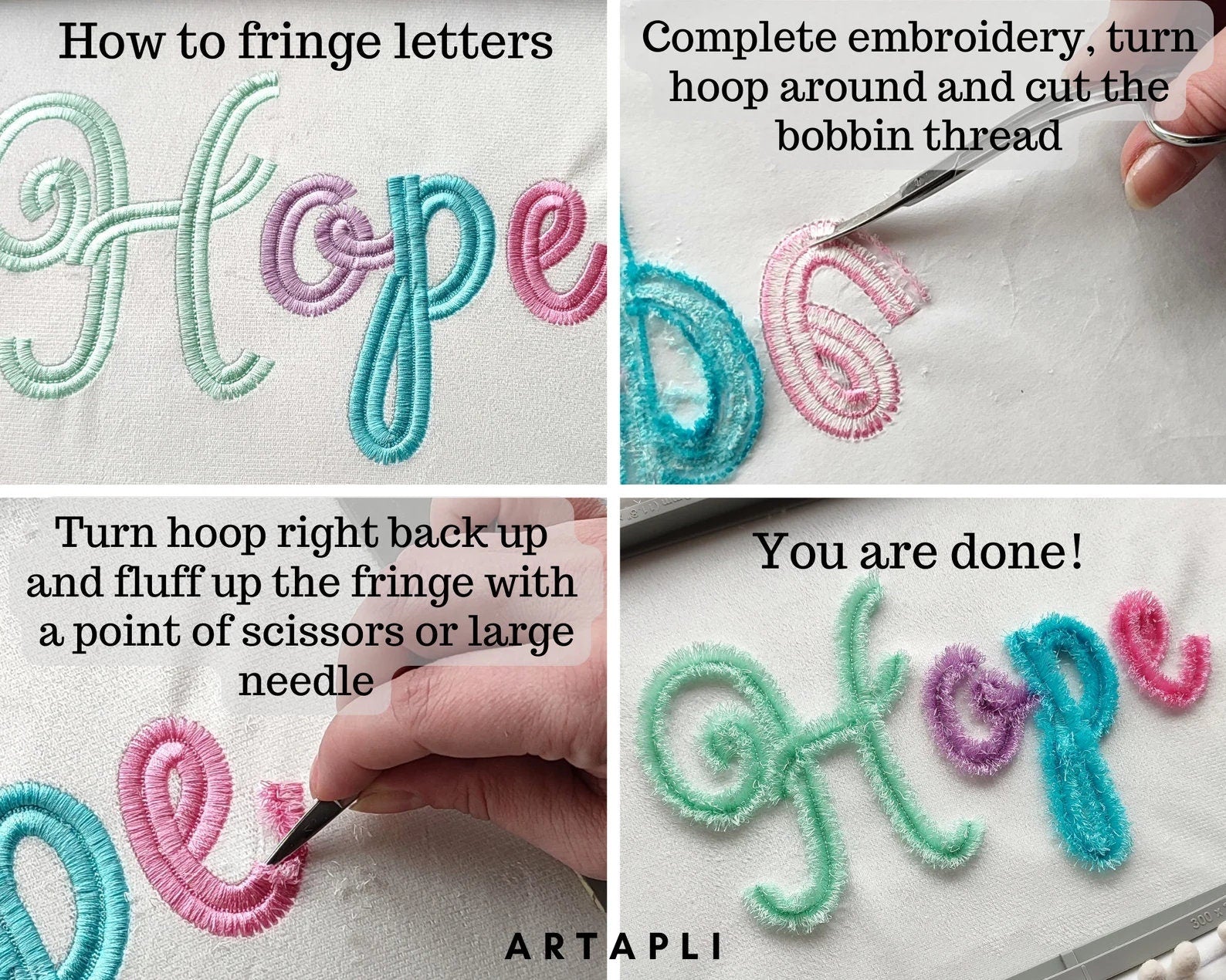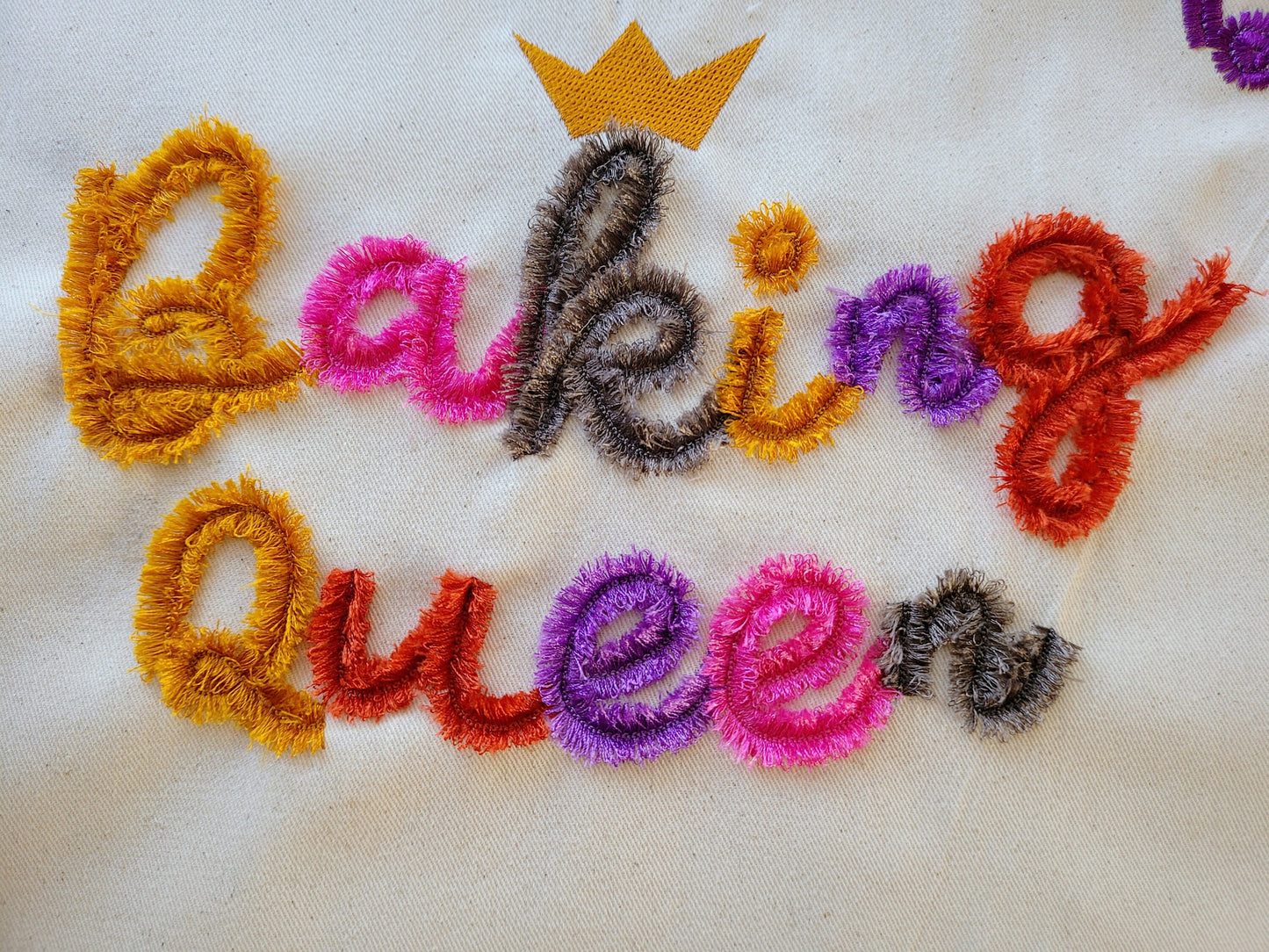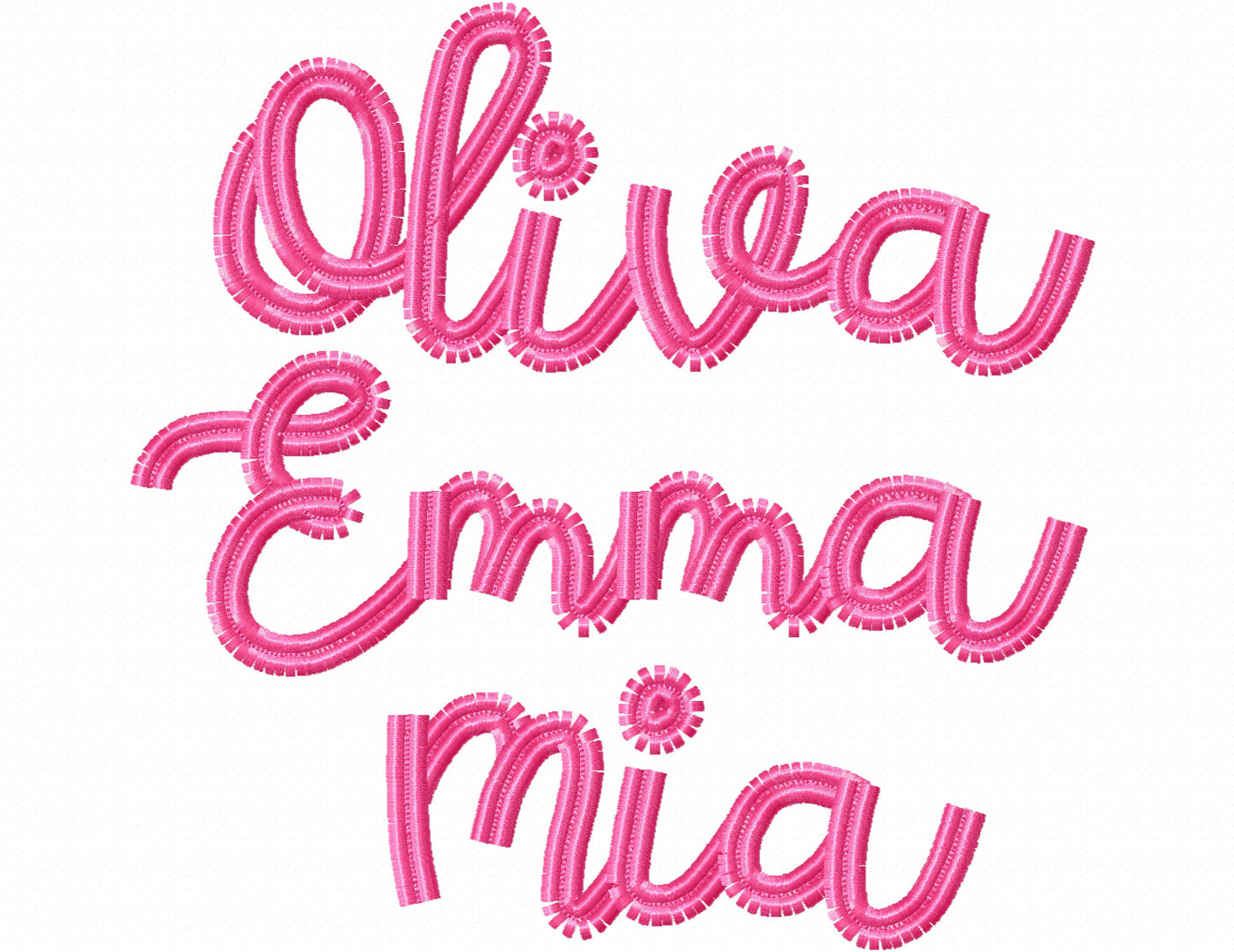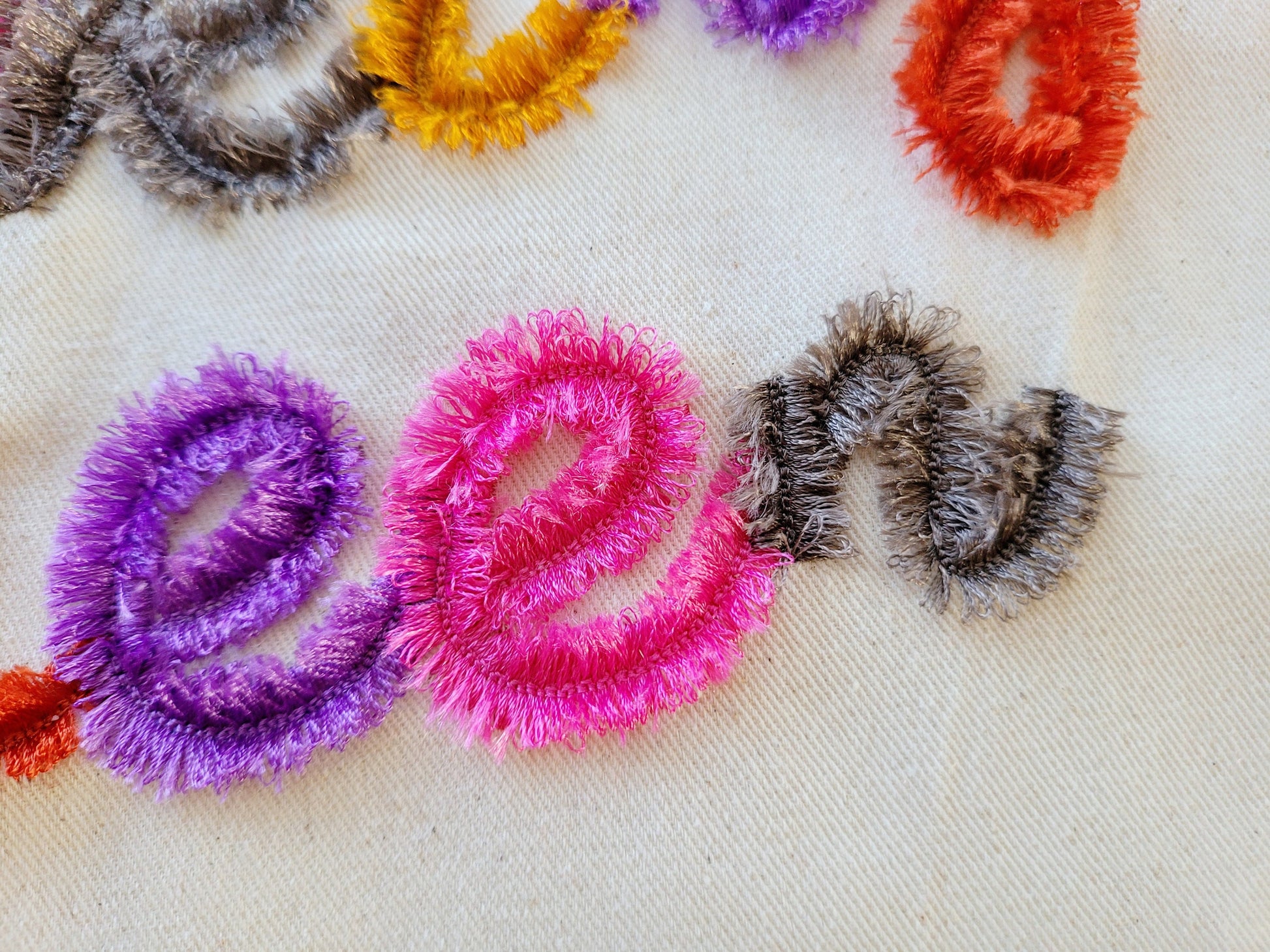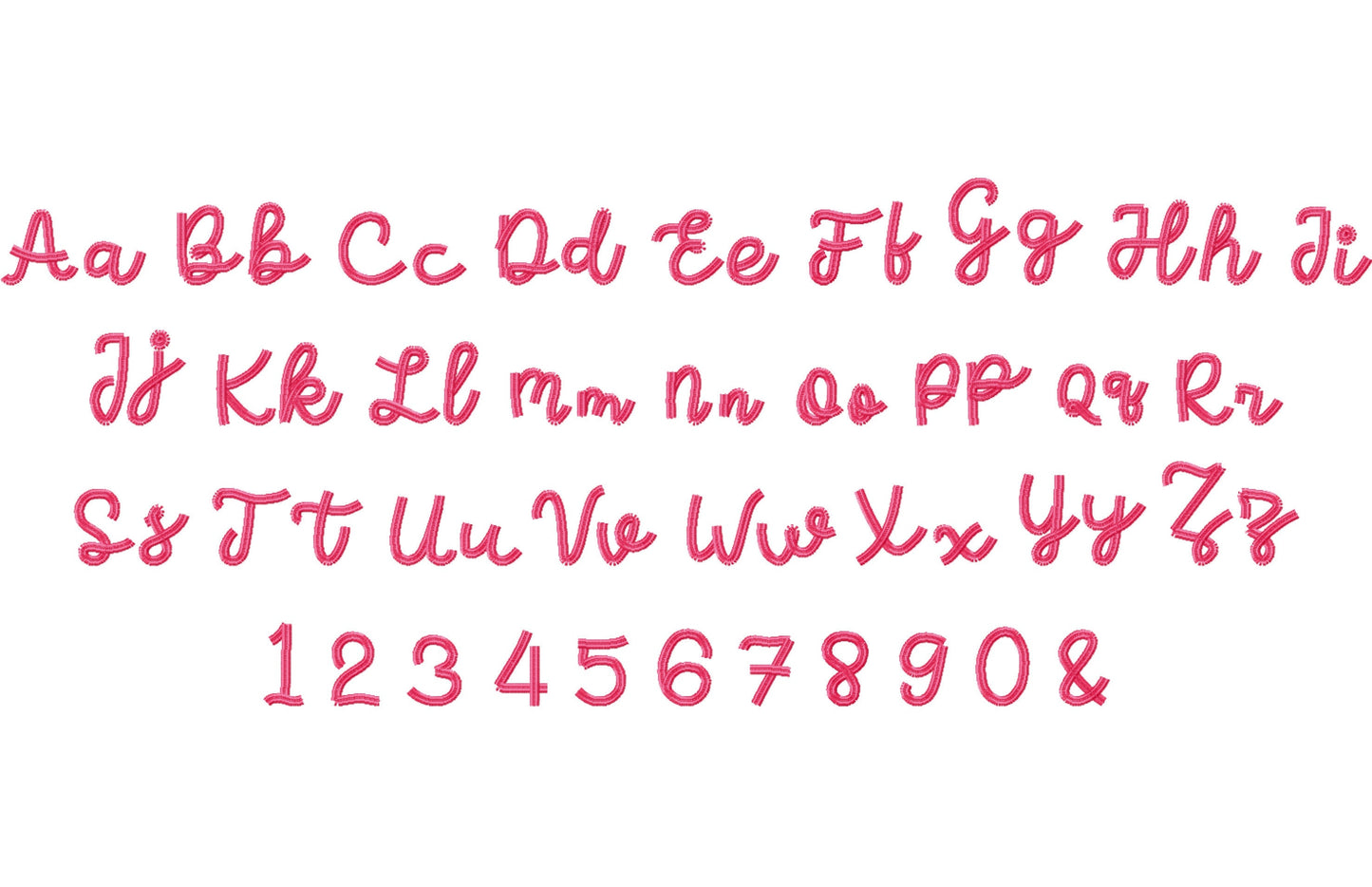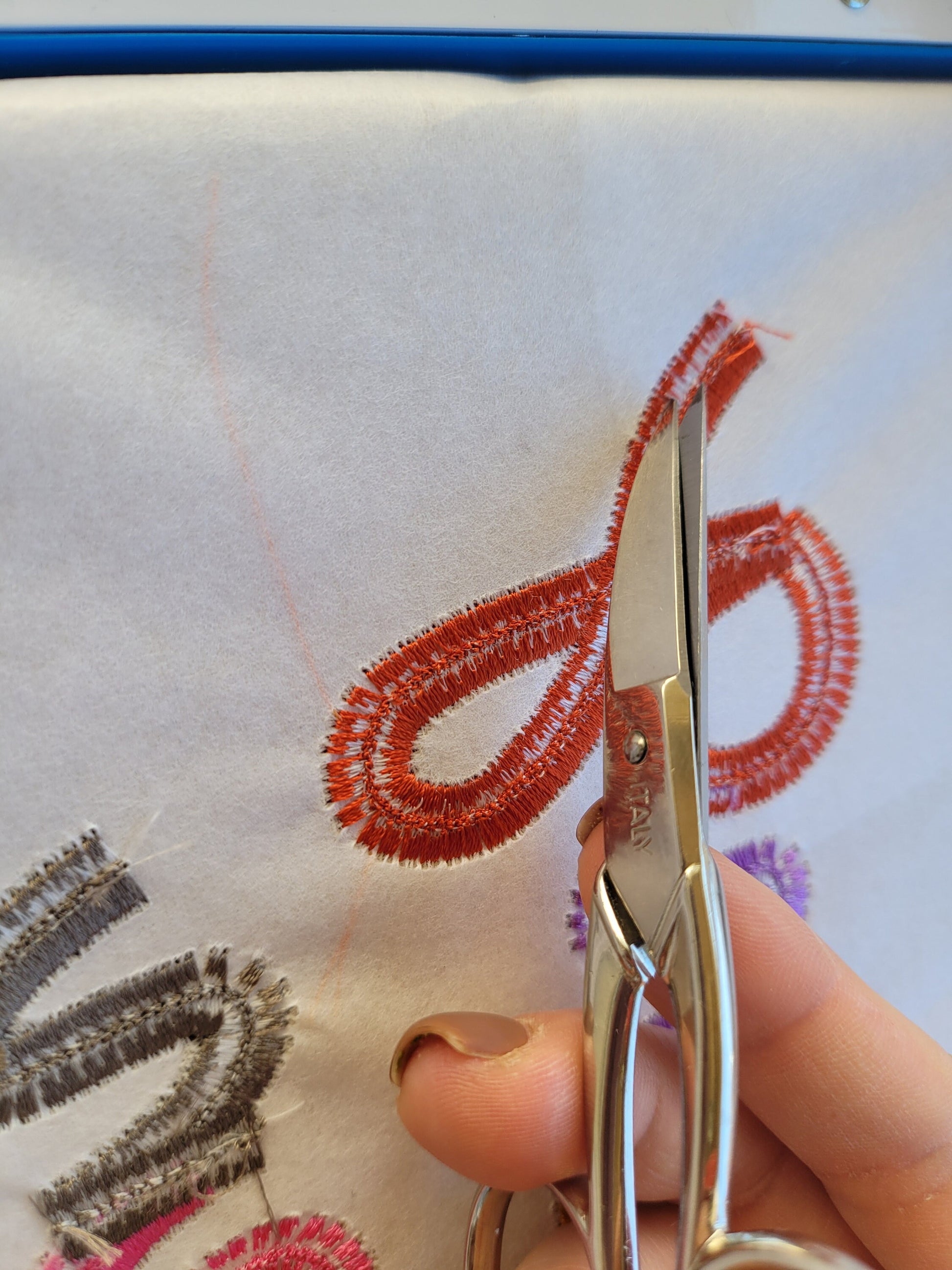
Or click to open the linkA tiny, extra secure fringed handwritten font that looks like soft fur. Sweet for little princess names, girls' shirts and bags.
Uppercase and lowercase letters, numbers 0 to 9 and a few signs, in five sizes: 2, 3, 4, 4.5 and 5 inches. The fringe is cut from the back and fluffed up, and a tack seam keeps it safe to wash.